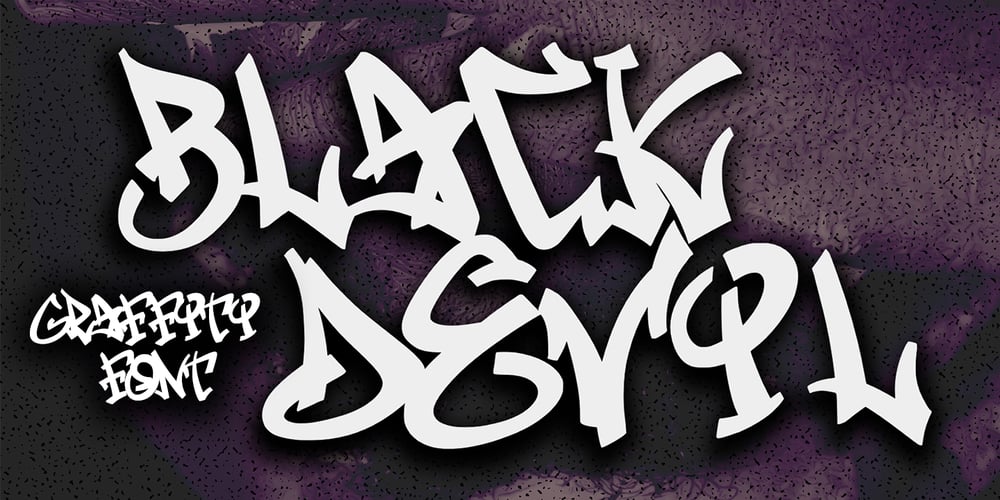
Black Devils Graffiti Font Family was designed by Sipanji and published by Sipanji21. Black Devils Graffiti contains 1 styles and family package options. Black Devils Monoline Graffiti FontThis font designed so that users can use it more easily and make graffiti designs easier. Black Devil is very suitable for use in various media such as; packaging, logos, labels, posters, shirt designs, bulletins, typography, and many other media, especially with graffiti look.